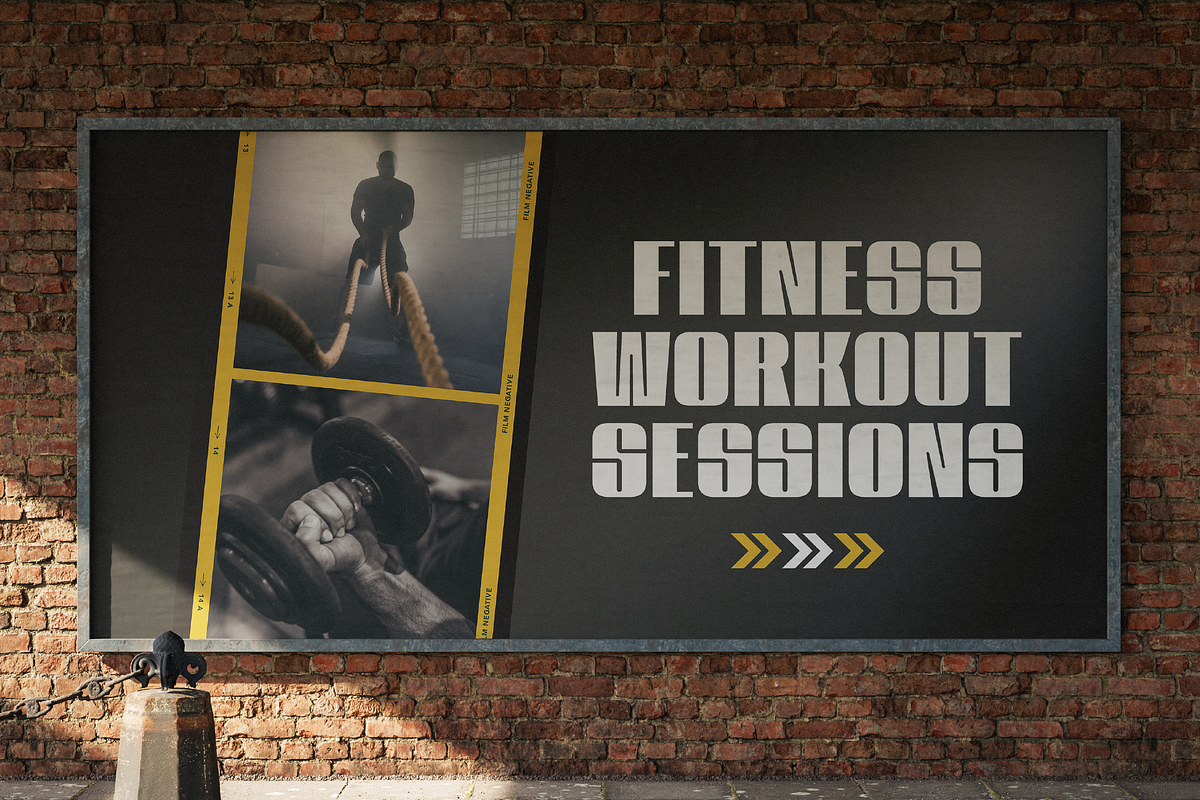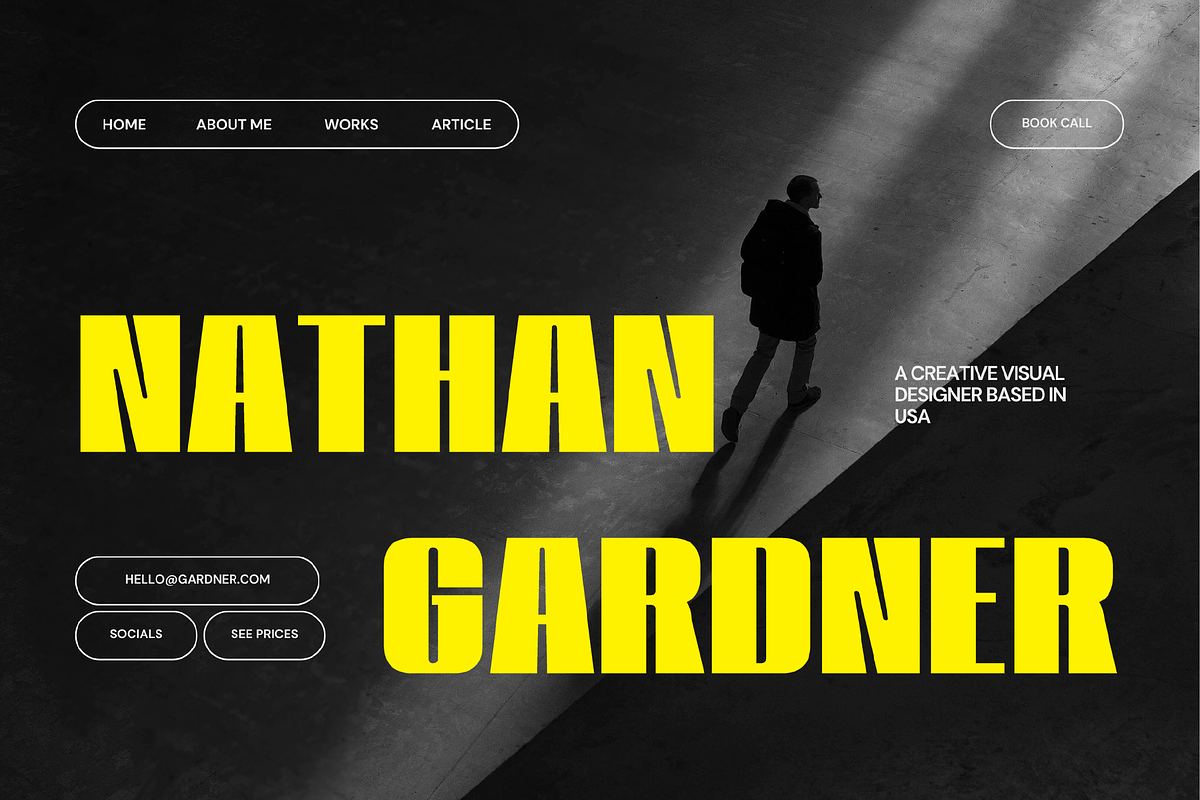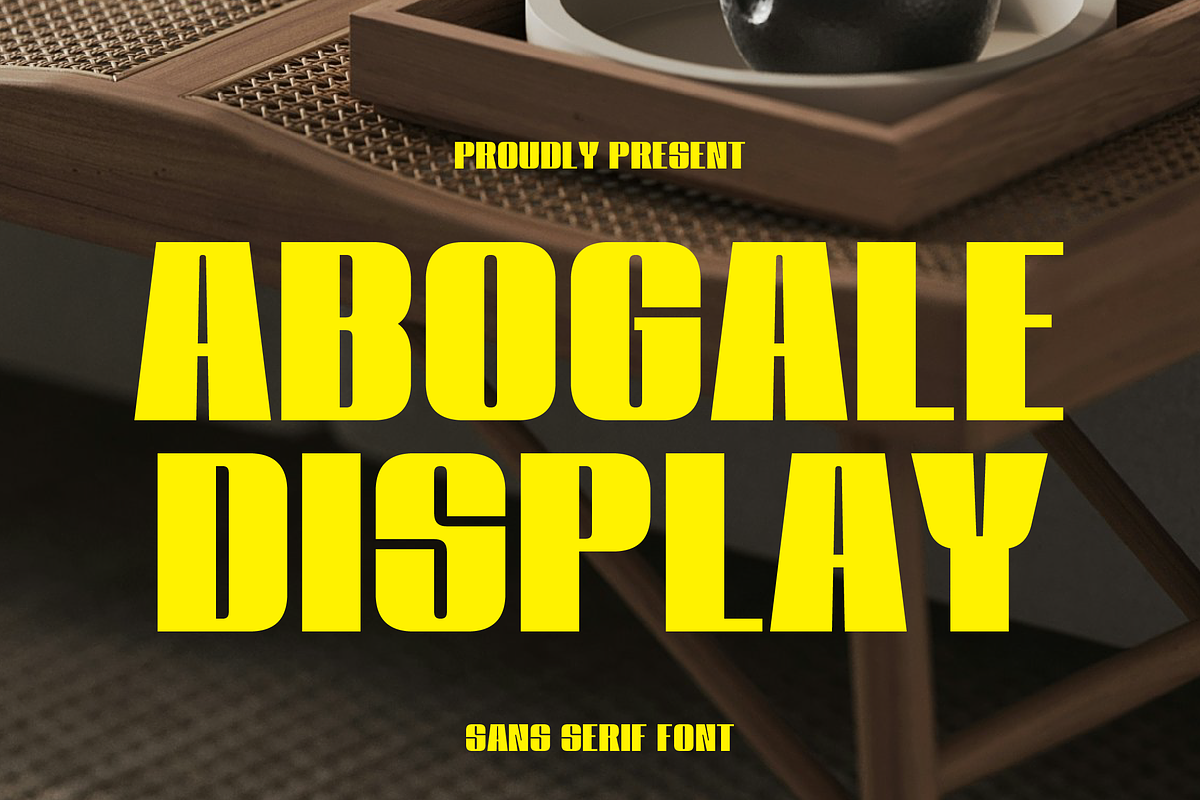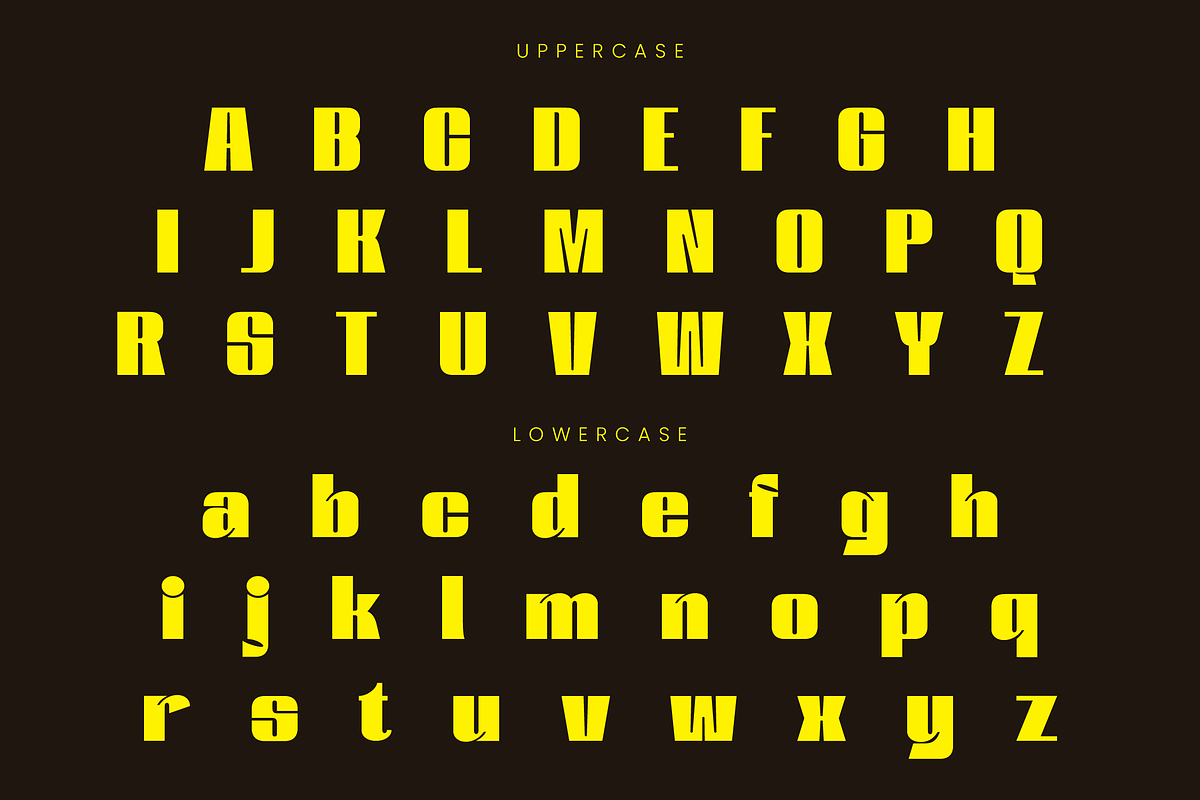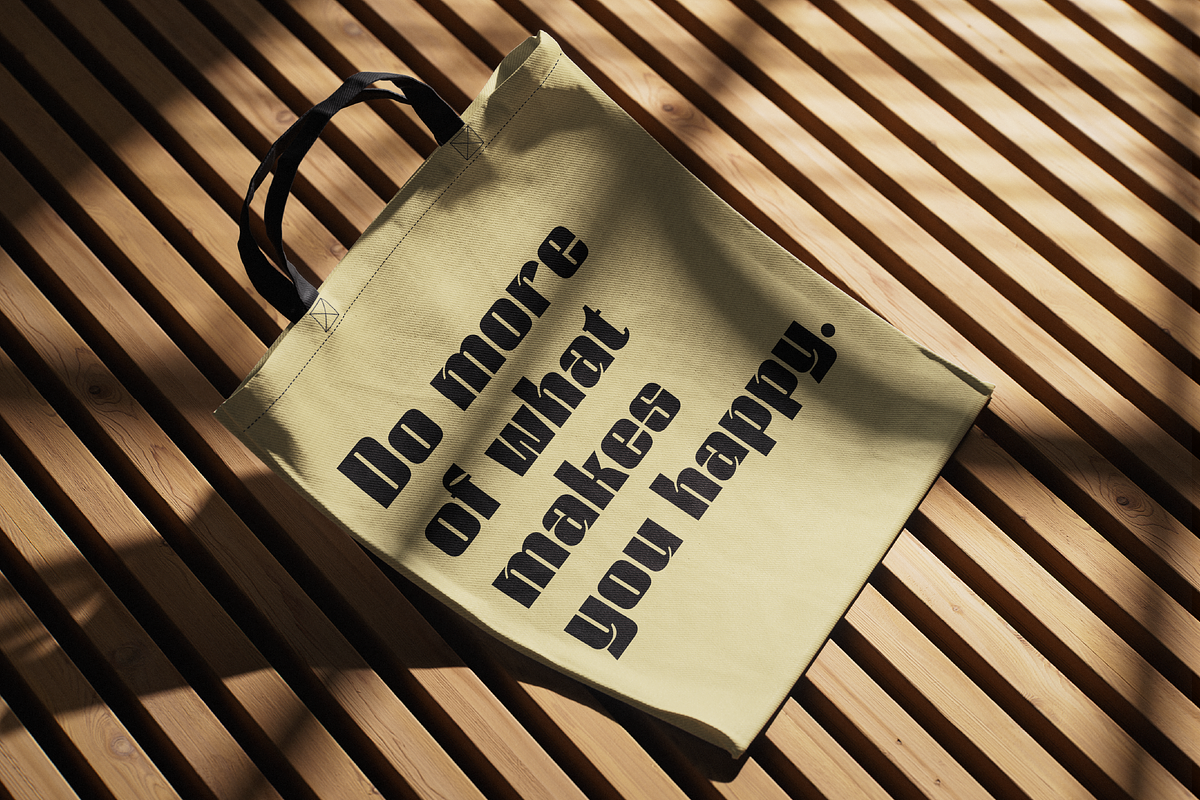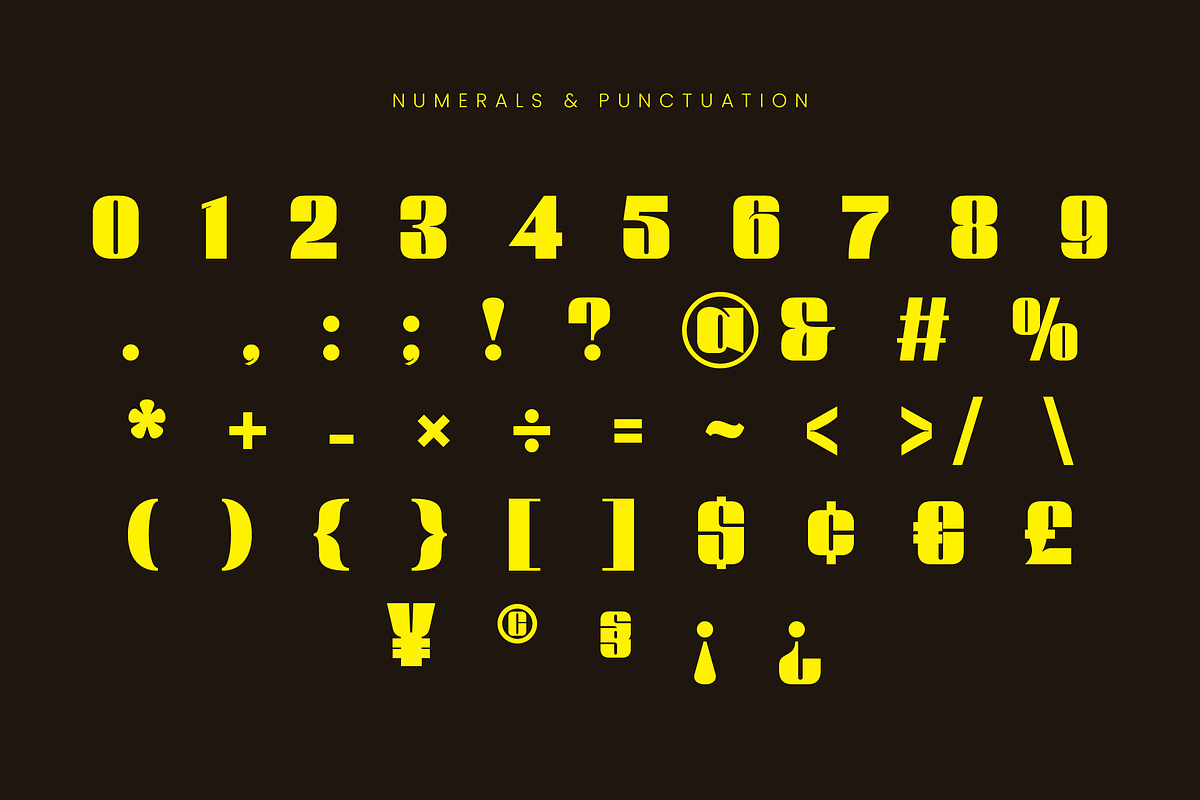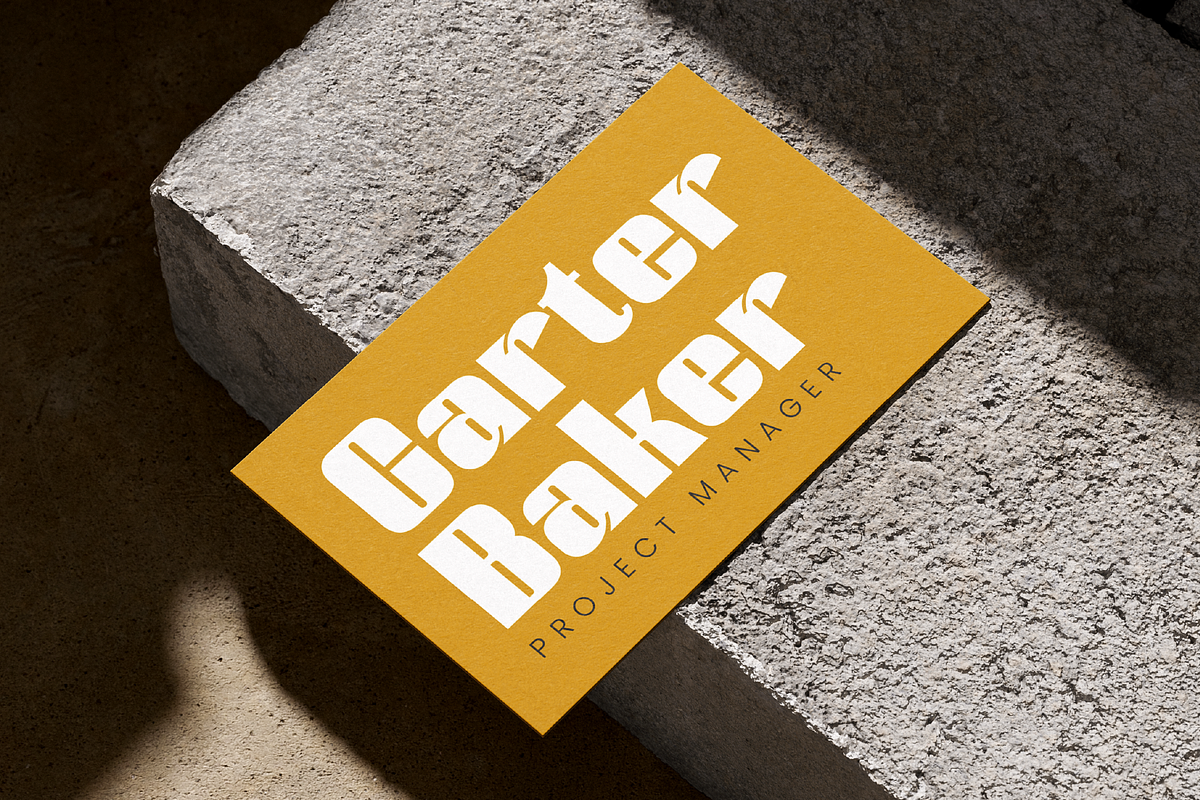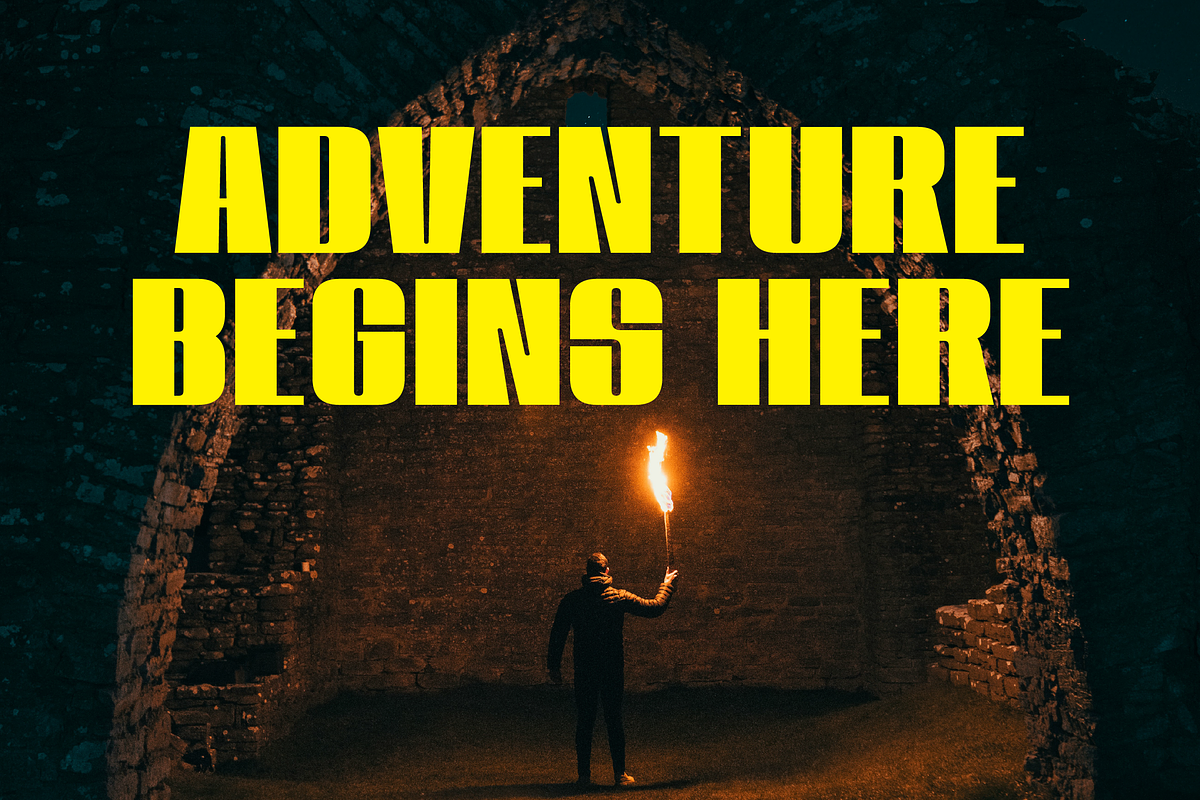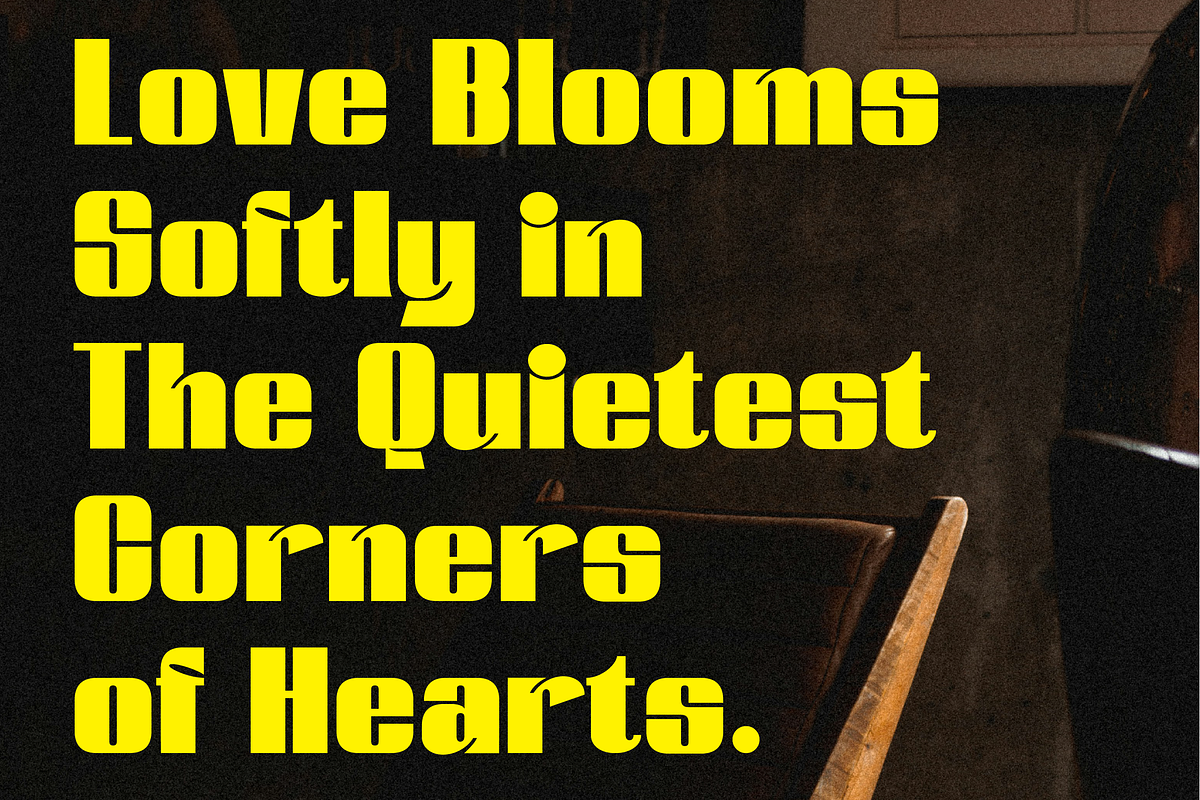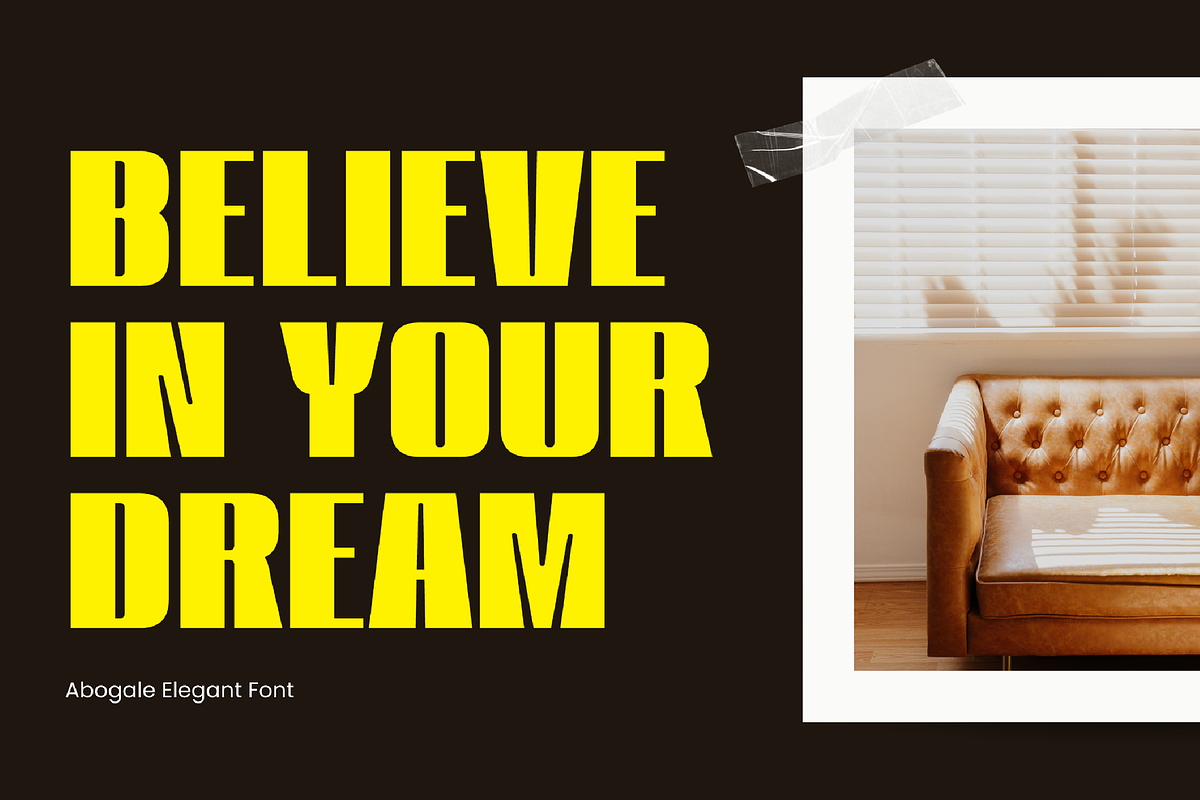
Abogale Display
Abogale Display is a striking bold sans-serif font designed to make a strong impact. With its sharp edges and dynamic letterforms, this font is perfect for eye-catching headlines, branding, posters, and editorial designs. Whether you’re working on a modern business card, a stylish magazine cover, or bold social media graphics, Abogale Display ensures your text stands out with confidence.
- Bold and powerful letterforms
- Strong visual presence
- Perfect for branding, posters, and editorial design
Enhance your design projects with the bold energy of Abogale Display and create stunning, high-impact visuals effortlessly!